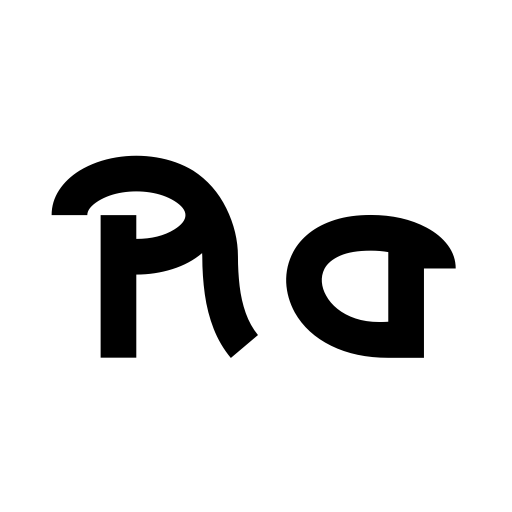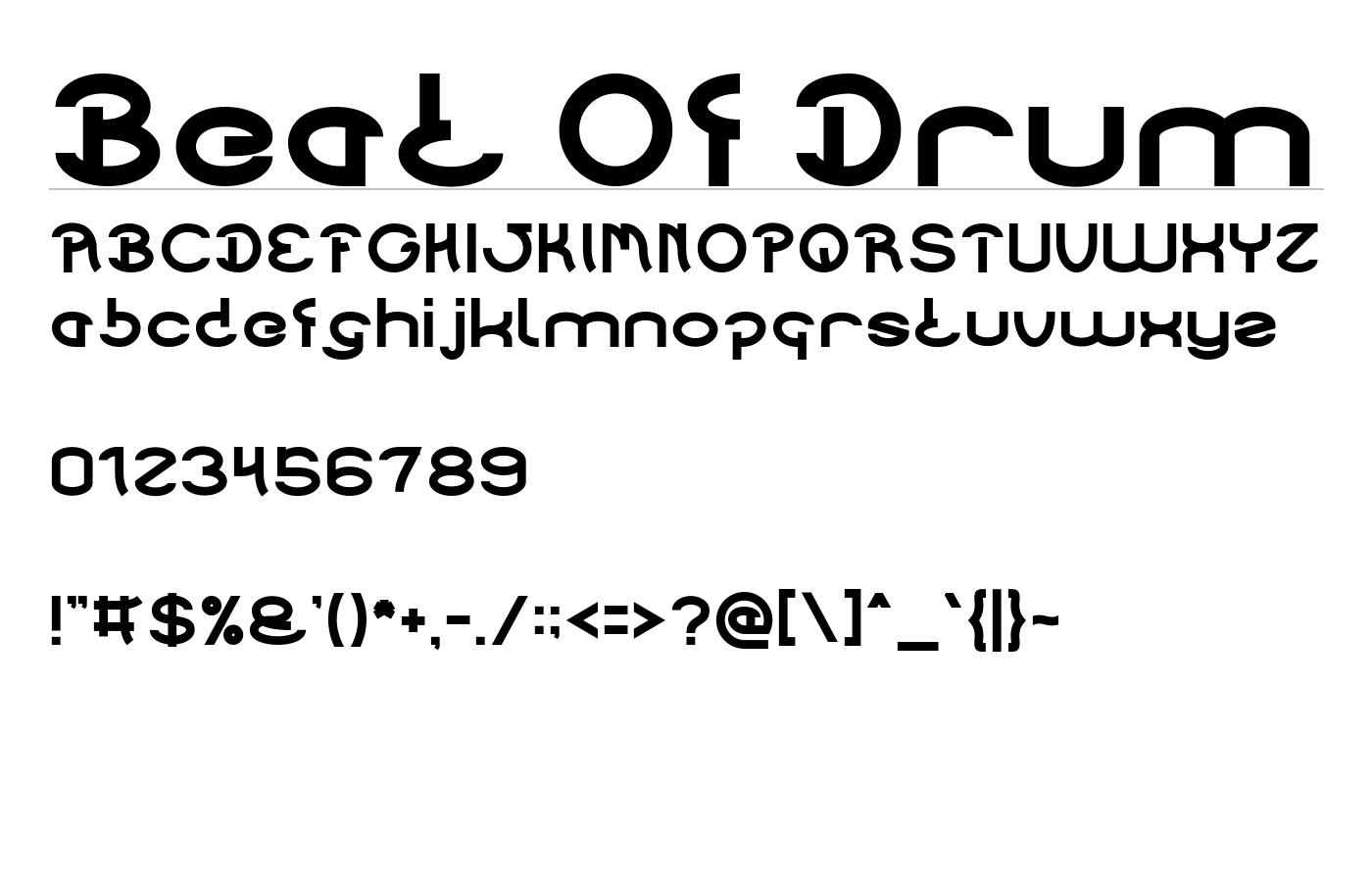
Beat Of Drum is a modern, sans serif font with a bold, geometric style that features playful and unique letterforms. Its rounded shapes and distinctive cuts give it a futuristic and tech-inspired feel, making it ideal for creative branding, headlines, and eye-catching display designs. This font works well where a dynamic and contemporary look is needed to stand out.
Beat Of Drum Font
About Beat Of Drum Font